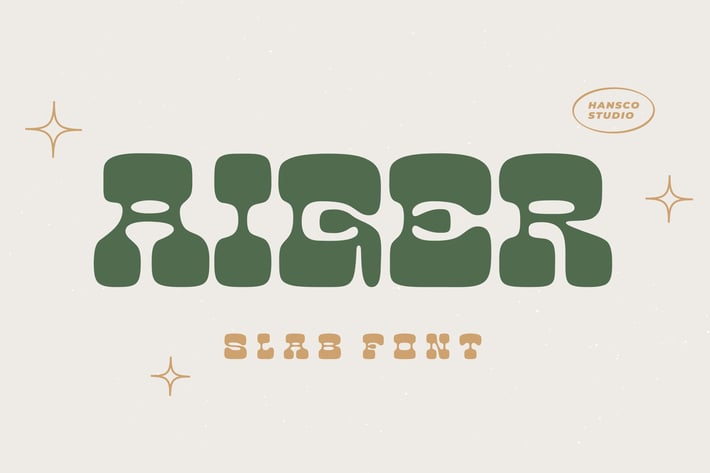
Aiger Font
Aiger is a retro slab type font with rounded characters on each side. This font comes with a FULL CAPS, numbers, punctuation and standard multilingual support in ALL CAPS. Use this display slab font to add that special retro vintage touch to any design idea you can think of!
All Uppercase ( No Lowercase )
Numbers & Punctuation